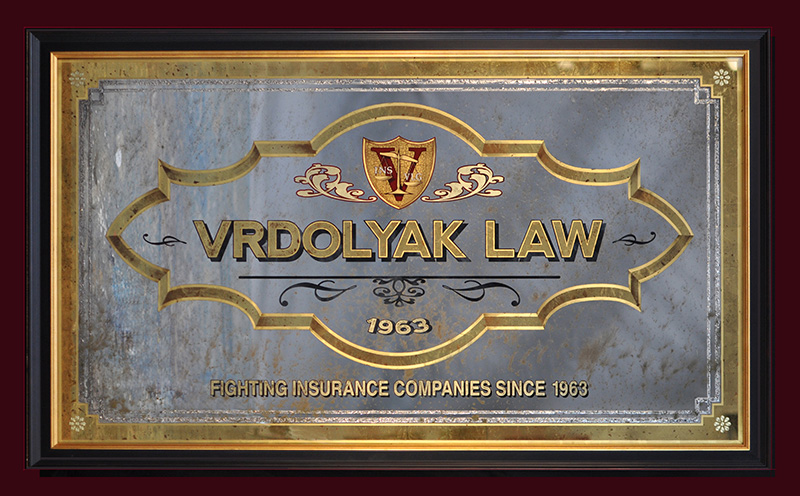
Gold leaf glass mirror
Thought I might post a photo of the gold leaf mirror I just finished.
Looks nice Roderick.
The distressing/aging... did you sponge, flick and splatter it?
The background is antiqued silver mirror and the gold leaf is antiqued oil and water gilded leaf , 12k.18k.22k and 23k. Here is a link to my face book page that shows the whole process.No paint splatter or sponging.
Another fine looking piece...You've really got that antiquing process well sorted.
Is that a real name???...I'm still trying to work out how to pronounce it! If feel sure there may be some weird or cryptic meaning going on there, but I'm missing it...hahaha
Thanks,glad you like it. Now I just have to figuire out how to do the antique mirroring with paint and leaf like you do. Maybe I should come over for a workshop!
Tried many time with no success. Yes Eddie Verdoyak is a real guy. Google his name ,add chicago in there. He was a big Chicago politition at one time. It pronounds VER DOl YAK.